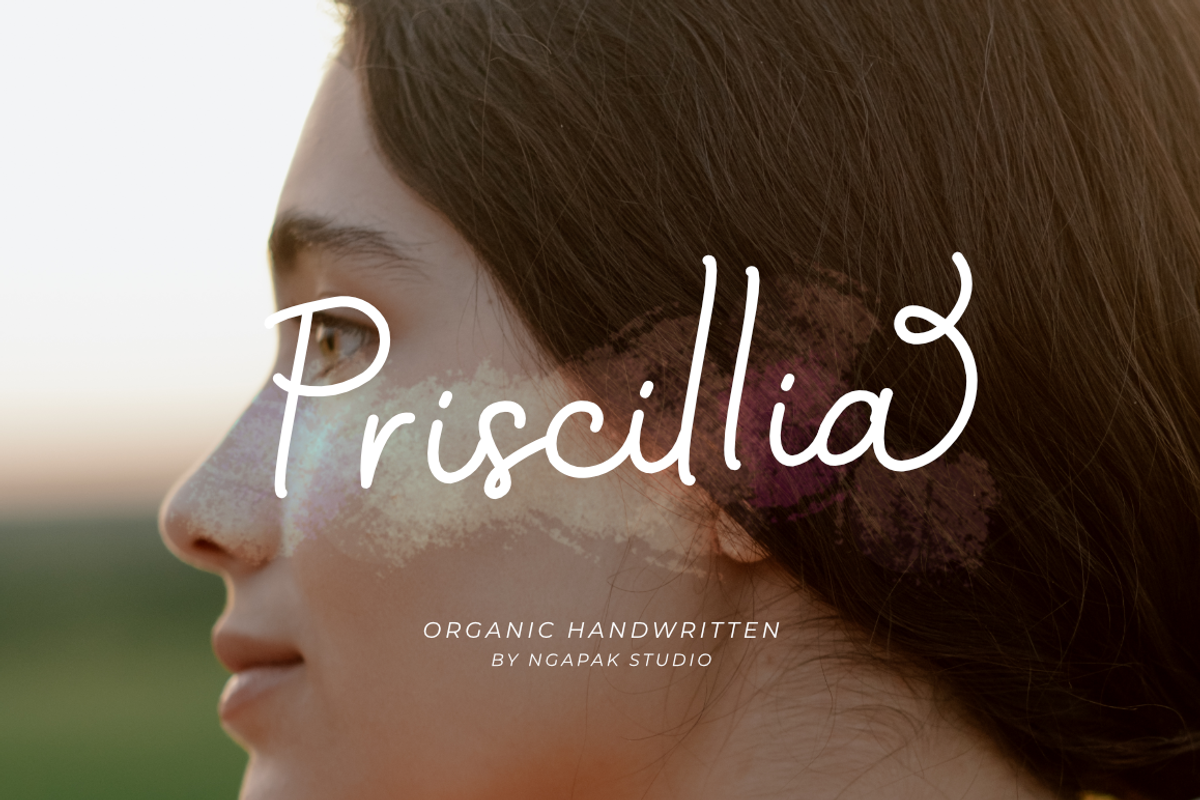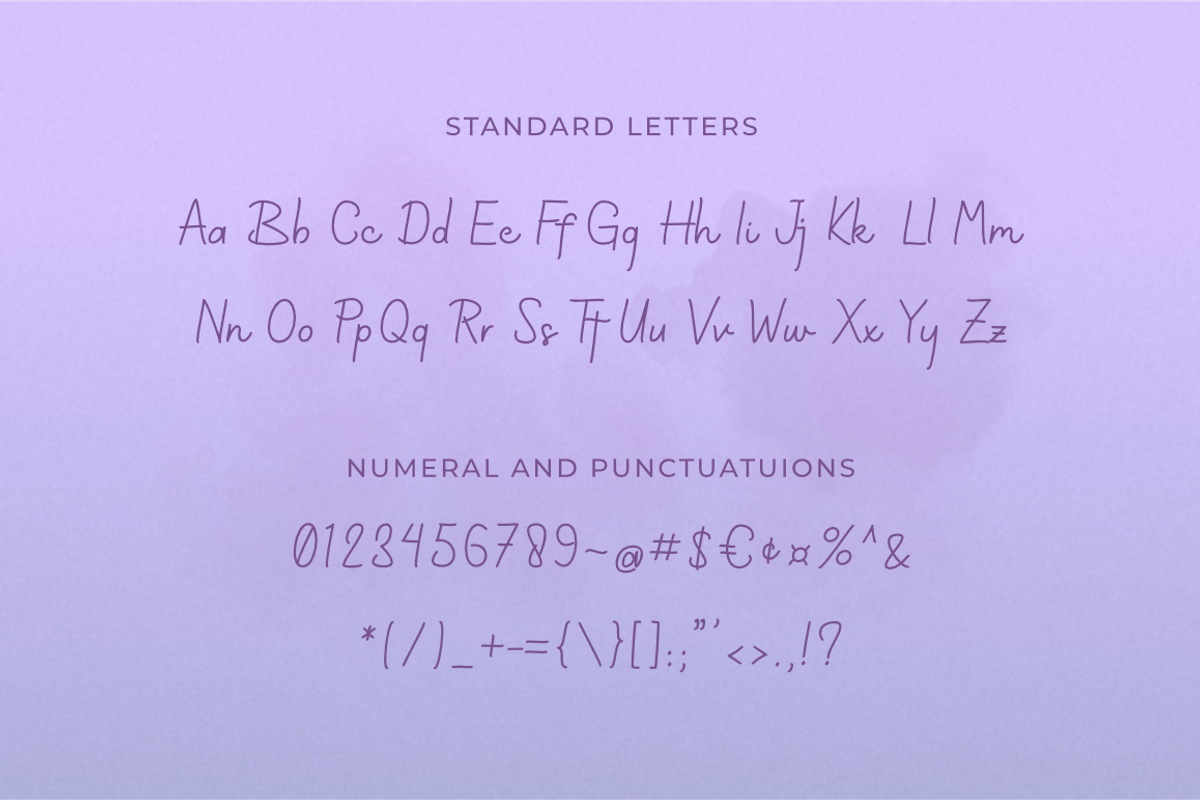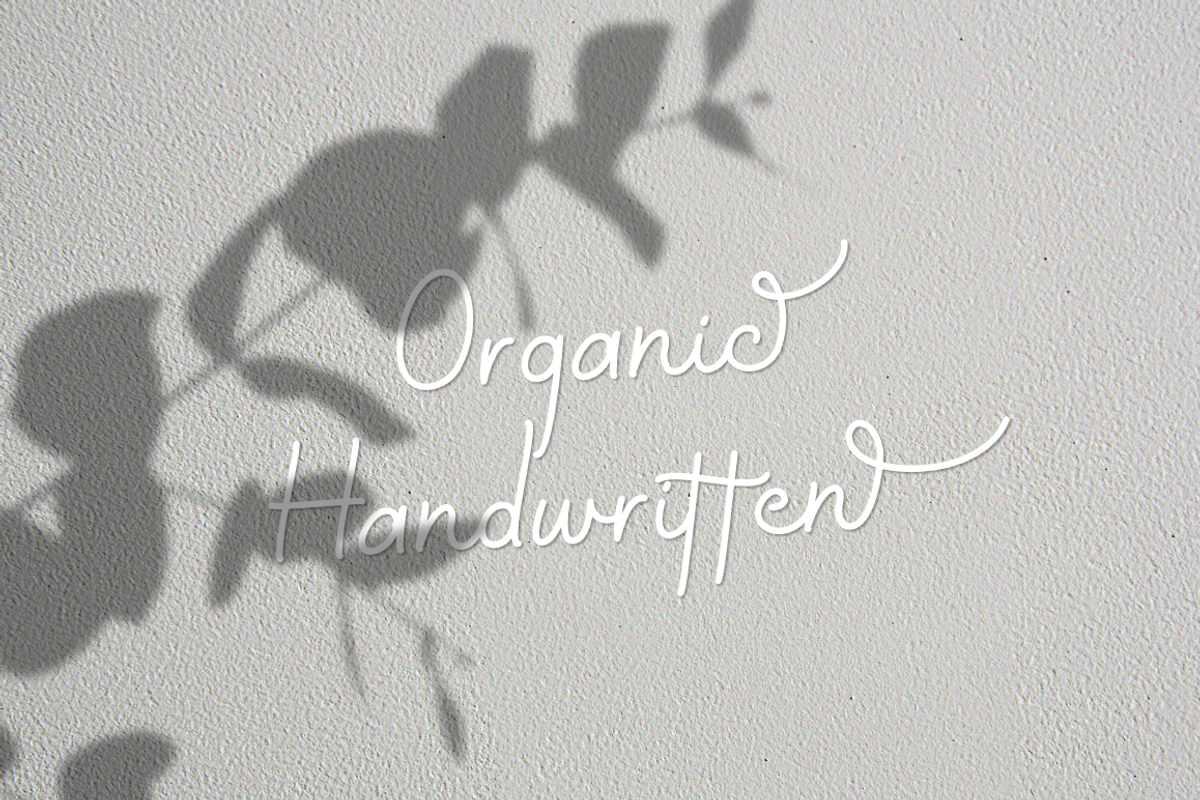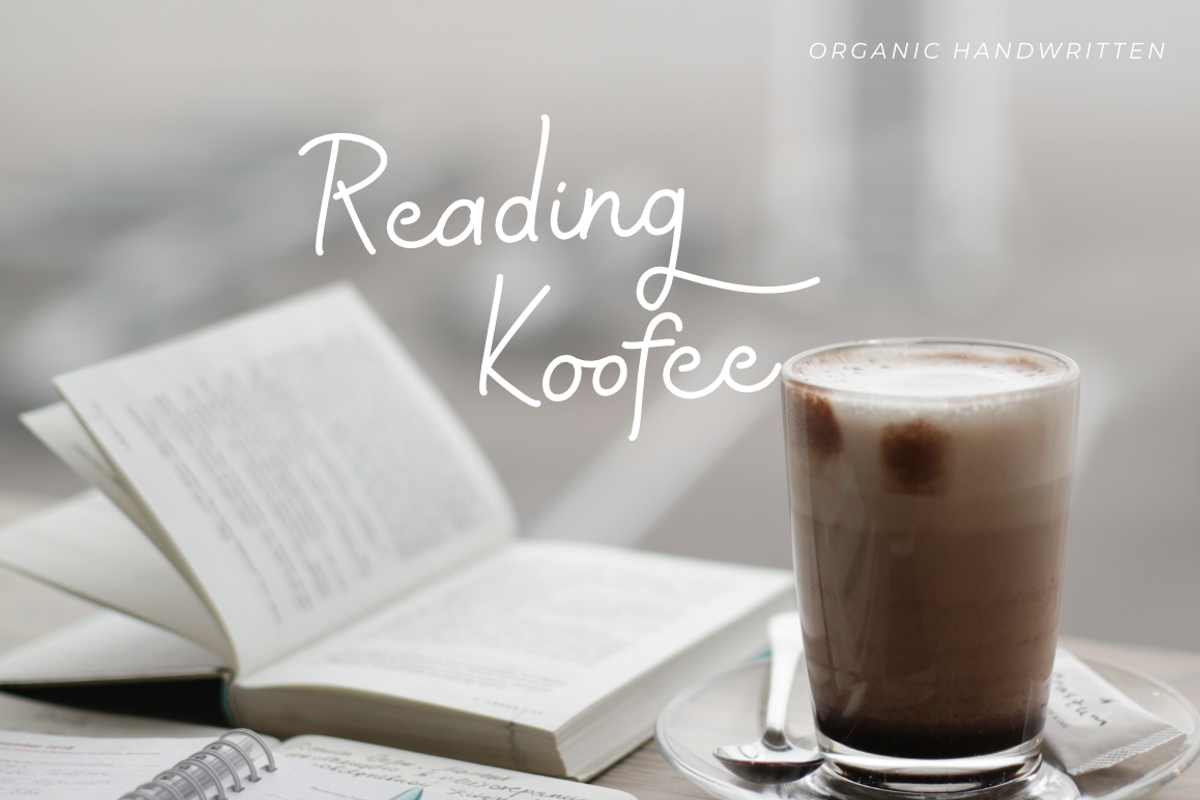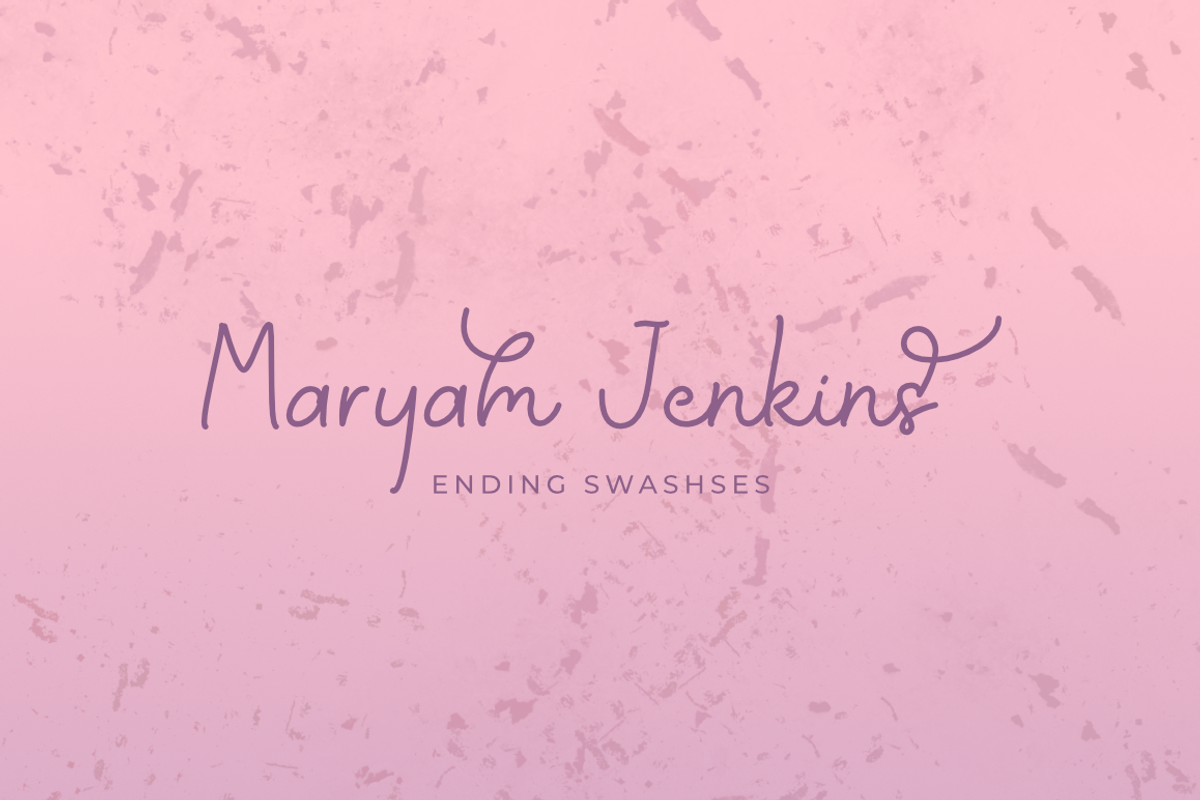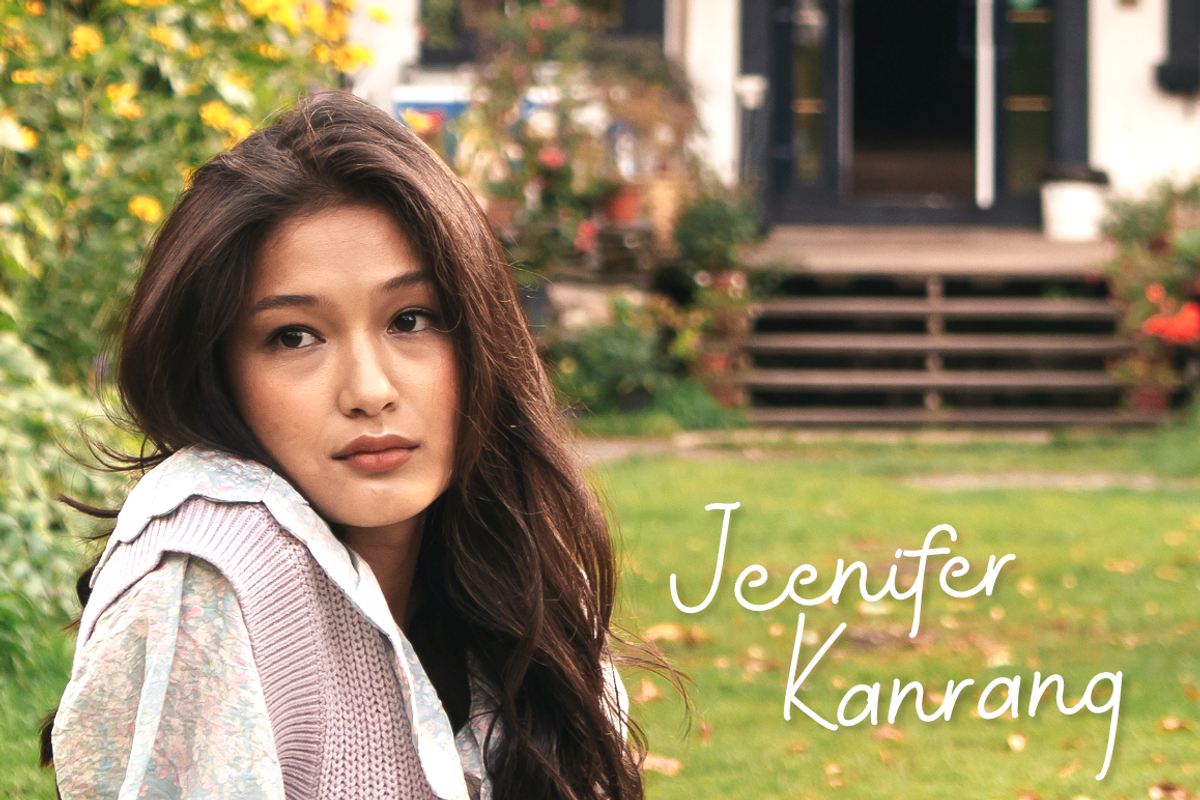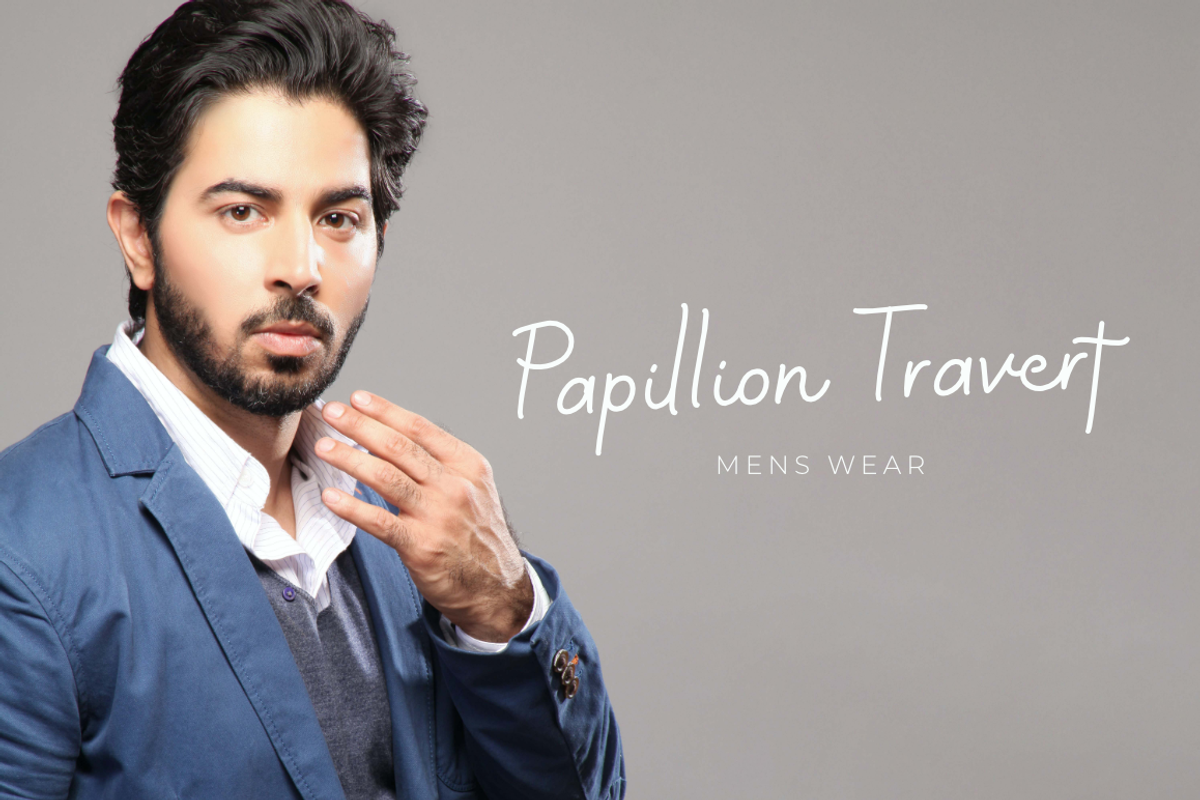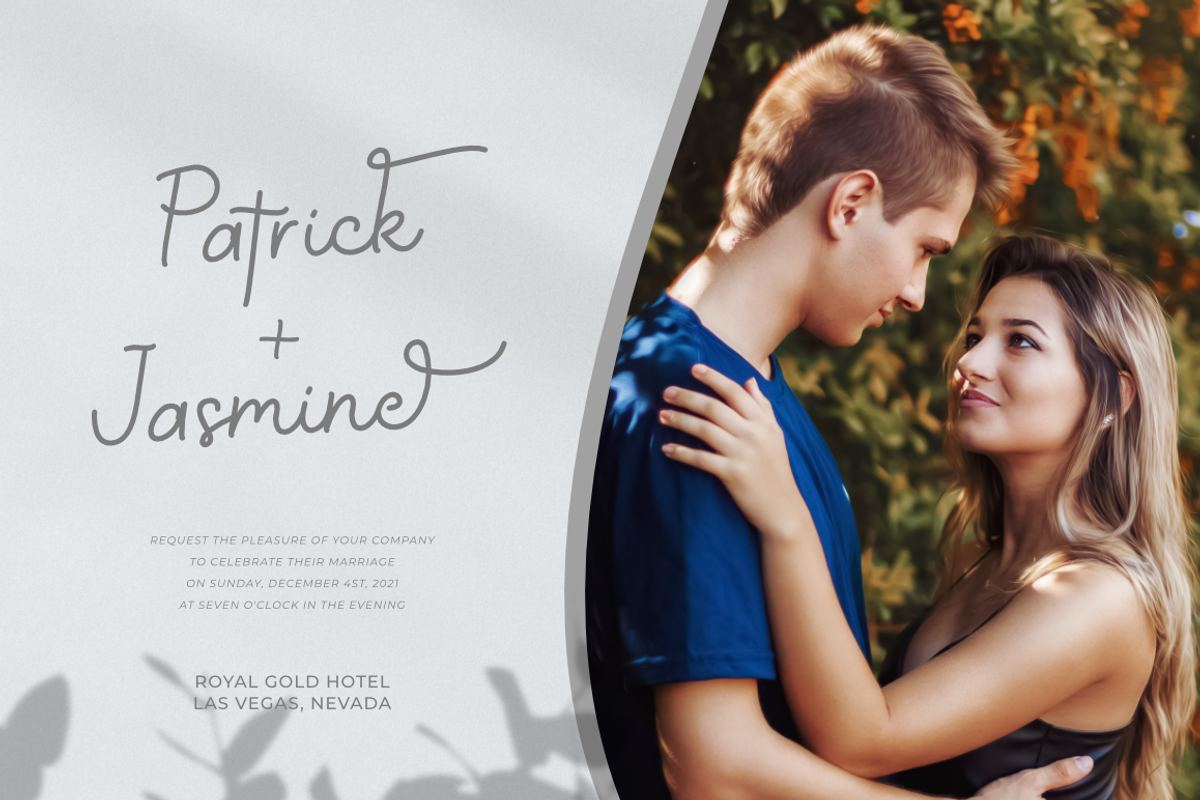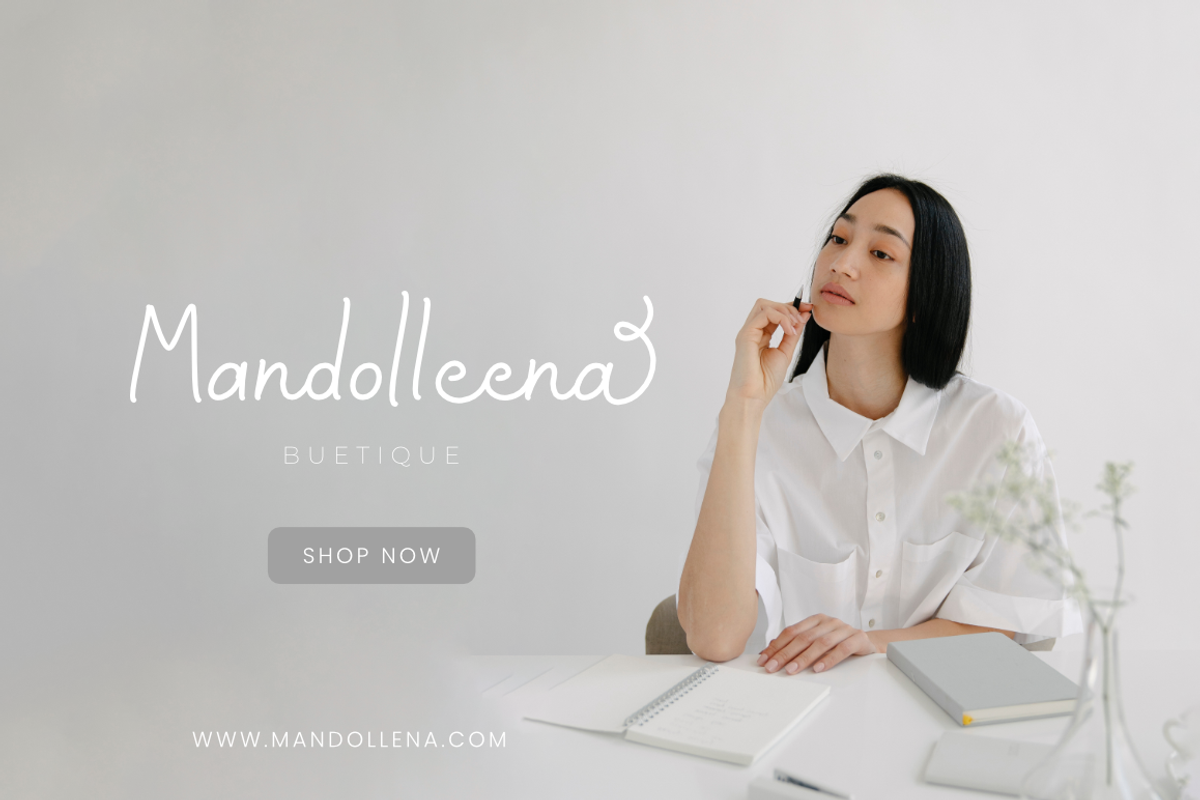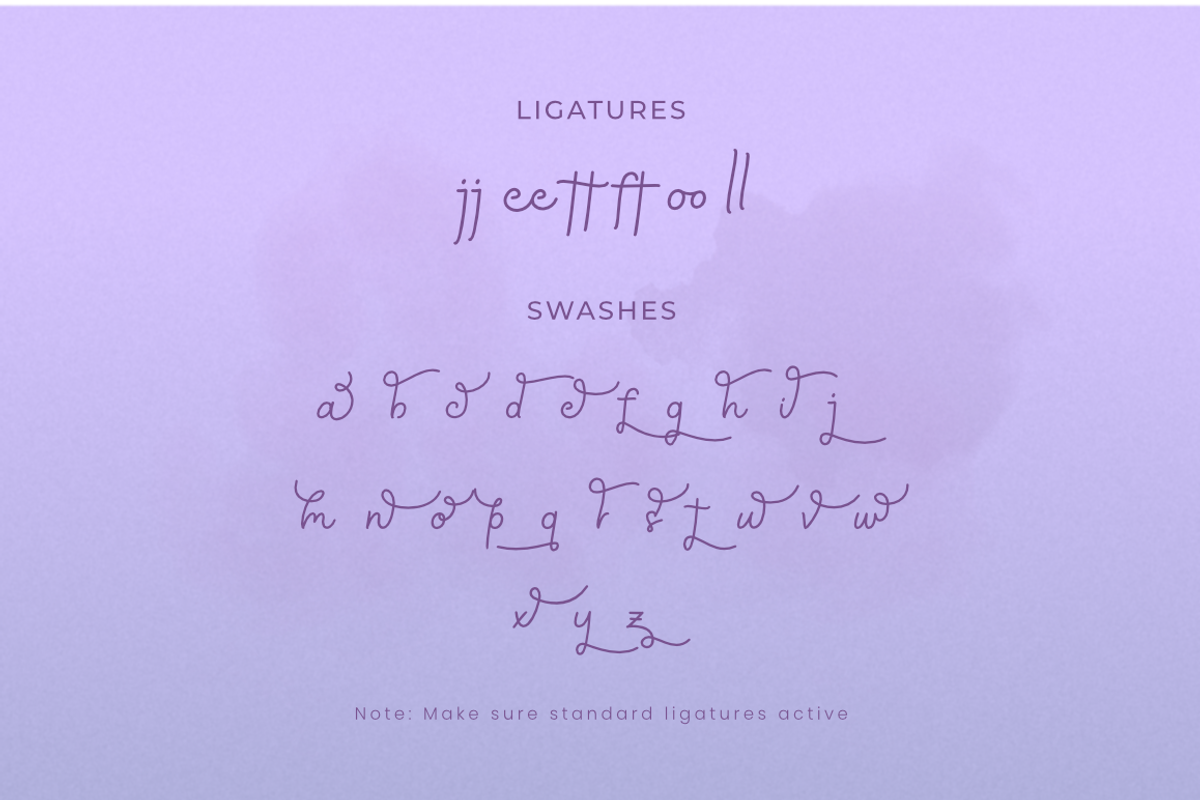
Priscillia | Organic Handwritting
Priscillia is a simple monoline font with a modern handlettering that perfect for your project.
Priscillia is perfect for branding projects, wedding, wedding invitation, logo, social media posts, advertisements, product packaging, product designs, label, photography, watermark, invitation, stationery and any projects that need handlettering monoline typeface taste.